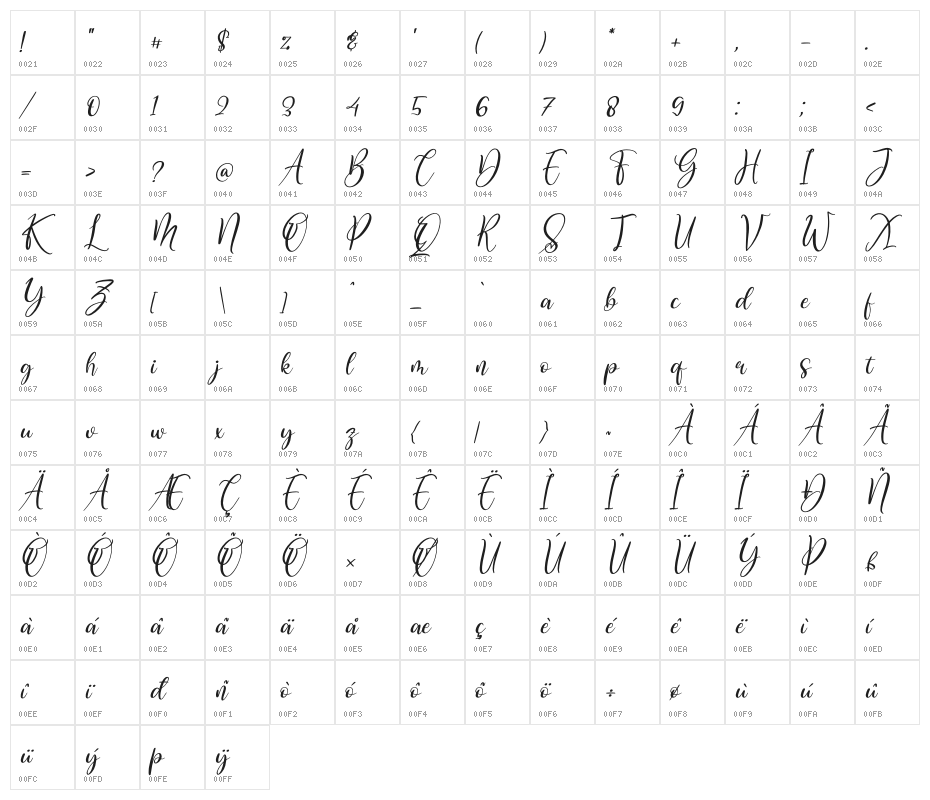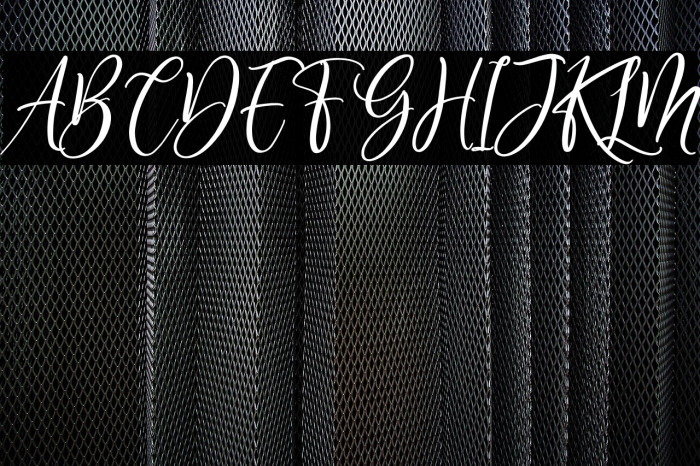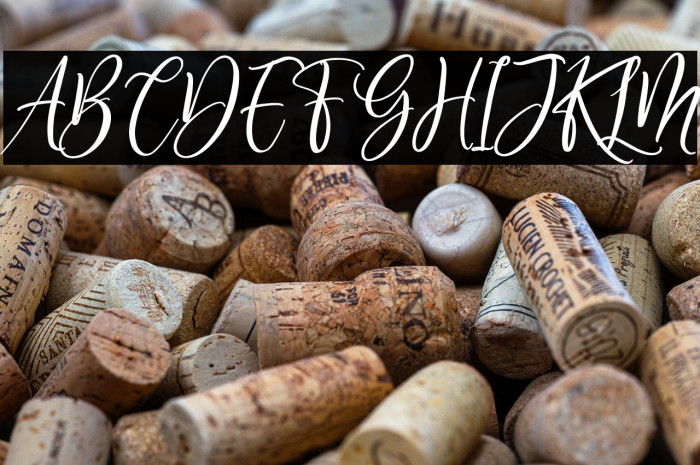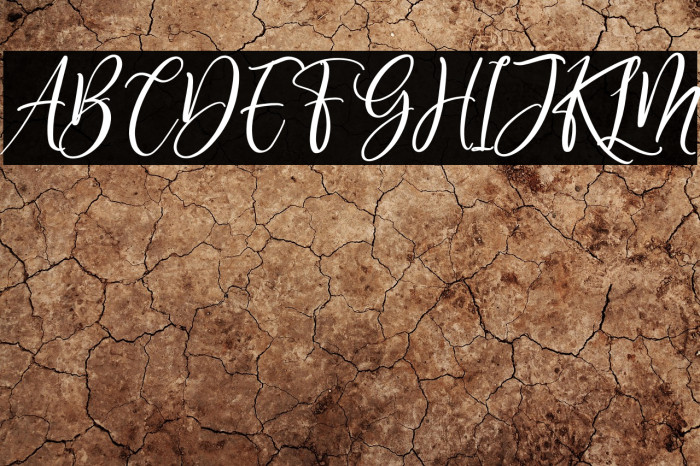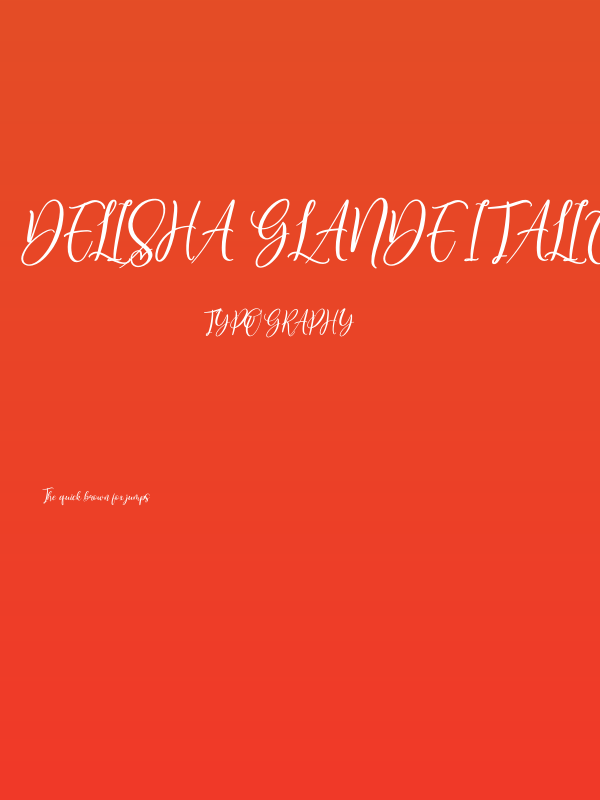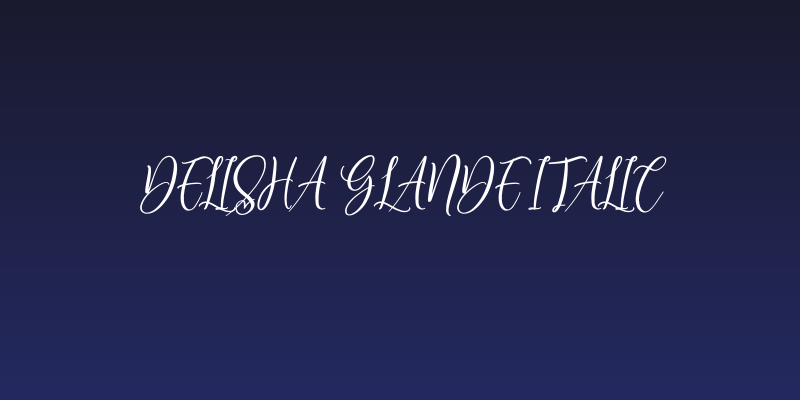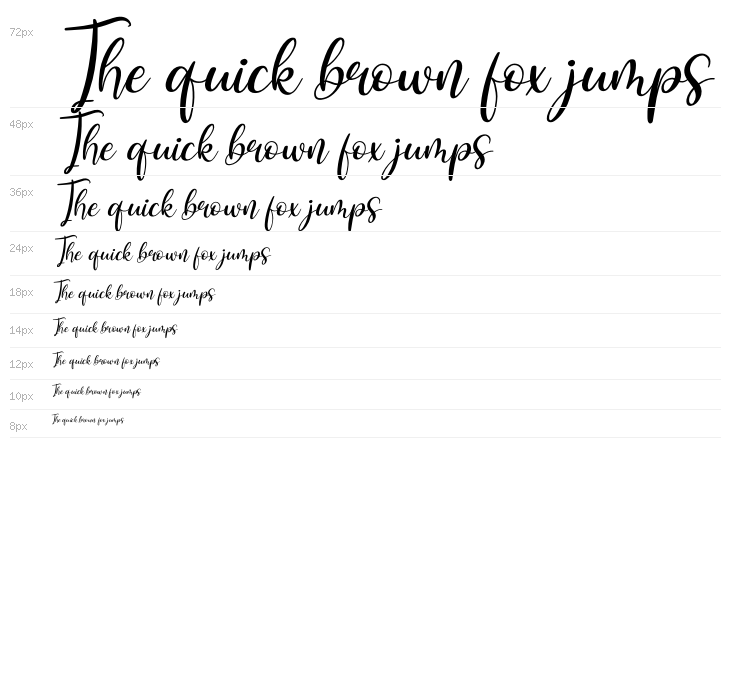
Delisha Glande Italic Font
Delisha Glande Italic Description
This font features an elegant and flowing script style, characterized by its cursive and interconnected letterforms. The uppercase letters exhibit a graceful, sweeping motion with varying stroke widths that add a dynamic and lively feel. The lowercase letters maintain a consistent fluidity, enhancing the overall harmony of the typeface. Numbers and special characters are designed with the same attention to detail, ensuring a cohesive appearance across all glyphs. The font's italic nature emphasizes its sophisticated and artistic qualities, making it suitable for creative and expressive design projects.
| Proposed Projects | Ideal for wedding invitations, greeting cards, branding, and logo design where a touch of elegance and sophistication is desired. |